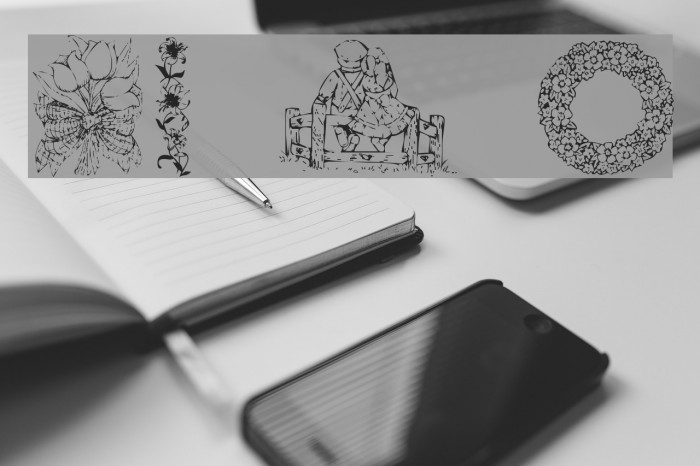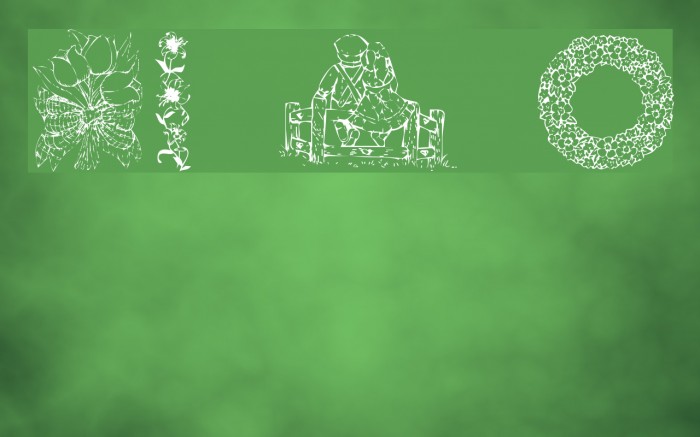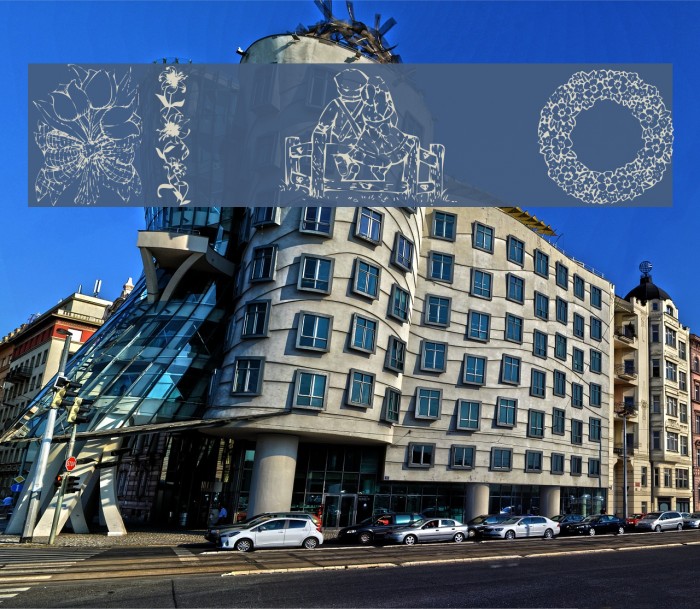
KR Country Flowers Font
This decorative font features intricate floral and country-themed illustrations integrated into each character. The letters are adorned with detailed designs, including flowers, teapots, and other rustic elements, creating a charming and whimsical appearance. The style is highly ornamental, making it ideal for projects that require a touch of elegance and creativity. Each character is unique, with varying levels of detail, contributing to a cohesive yet diverse visual experience.
A decorative font with floral and country-themed illustrations.
- Proposed Projects: Ideal for wedding invitations, greeting cards, scrapbooking, and other creative projects that benefit from a decorative and whimsical touch.
- Use Case: Logos, Headlines, Decorative text